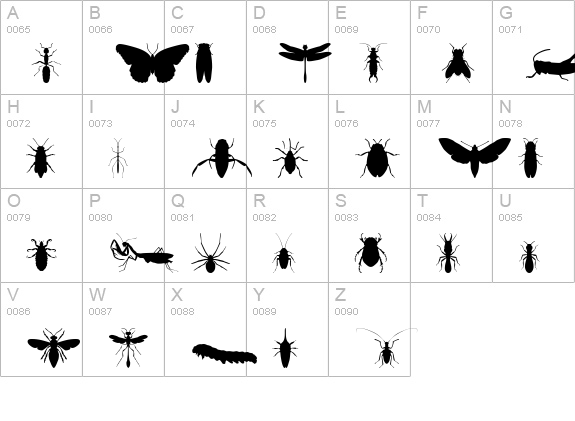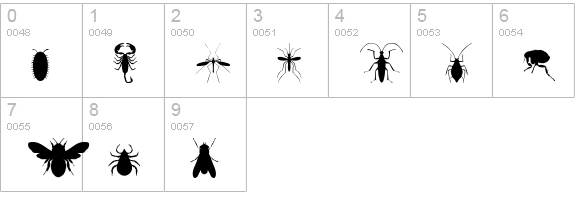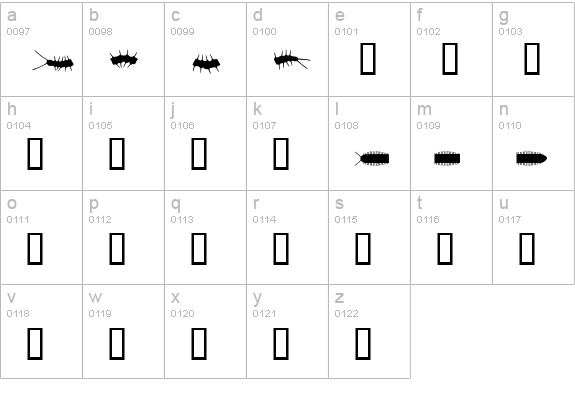
Insectile Solid Font Details
Insectile Solid font is a captivating and unique typeface that beautifully captures the essence of insects in its design. Each letter and character in this font is intricately crafted, resembling the delicate and intricate patterns found in the natural world of insects. The Insectile Solid font is perfect for adding a touch of whimsy and intrigue to any design project. Whether you are working on a poster, logo, or website, this font will instantly grab attention and leave a lasting impression on your audience. Its bold and distinctive style makes it suitable for a wide range of creative endeavors, from nature-themed designs to children's books and beyond. But what sets the Insectile Solid font apart is not just its striking appearance; it is also its availability. This font is freely available to download at FontsMarket.com, making it accessible to designers and enthusiasts alike. With just a few clicks, you can bring this captivating font into your creative arsenal, allowing you to explore its endless possibilities and unleash your imagination. So, whether you are a professional designer looking to add a touch of whimsy to your projects or an individual with a passion for creativity, the Insectile Solid font is a must-have. Download it for free at FontsMarket.com and let your designs take flight with the enchanting beauty of insects.